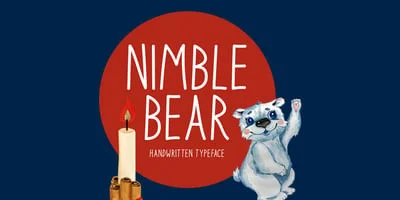
Nimble Bear Font
The Nimble Bear Font excels in various design applications including playful children's brand marketing, outdoor adventure company communications, wildlife conservation materials, forest camping gear identities, nature education center promotions, children's book illustration signage, outdoor preschool packaging, wilderness guide documentation, nature-themed toy materials, and distinguished outdoor projects that demand playful authenticity and wilderness sophistication.
What makes the Nimble Bear Font exciting is its playful embodiment of forest adventure and animal agility through letterforms that capture the essence of bear-like strength combined with nimble forest movement. This typeface demonstrates exceptional character through carefully crafted letters that suggest the sturdy reliability of bears, the quick agility of forest creatures, and the adventurous spirit that makes wilderness exploration so educationally valuable and emotionally engaging. The font's bear personality makes it perfect for children's brands and outdoor organizations seeking to communicate nature authenticity, playful adventure, and the kind of wilderness charm that creates memorable outdoor experiences through typography that literally moves with forest agility.
The Nimble Bear Font family typically includes playful weight variations that enhance the wilderness aesthetic, featuring nature-inspired styling options and extended character sets optimized for children's communications and outdoor applications. These family options often include forest-inspired alternates, wildlife symbols, and nature decorative elements that provide designers with comprehensive tools for creating authentically natural typography that celebrates wilderness adventure while maintaining contemporary design appeal and educational credibility.
Children's brand professionals and outdoor education organizations consistently select Nimble Bear Font for projects requiring typography that communicates wilderness authenticity and playful sophistication. This typeface delivers exceptional performance in children's marketing, outdoor branding, and nature communications where establishing adventure and creating forest atmosphere is essential for educational engagement. The font's bear character makes it particularly effective for children's and outdoor applications. Download Nimble Bear Font today to access this playfully adventurous typeface that transforms nature communications with its wilderness elegance and forest sophistication, creating compelling outdoor experiences that honor the magnificent agility of forest creatures while celebrating the playful adventure that defines authentic wilderness culture and nature education excellence.